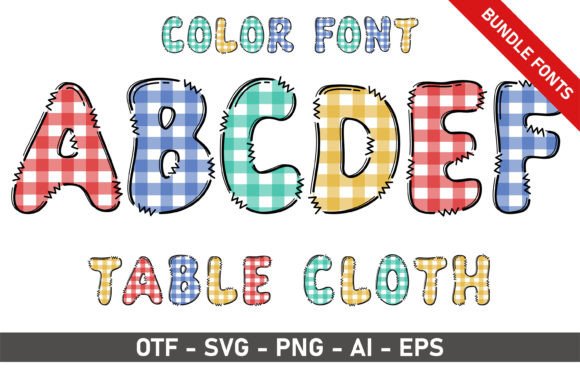
Welcome to the whimsical world of Table Cloth Bundle Font, a delightful collection of colorful characters created by the talented designers at Veil. The Table Cloth Bundle Font is the perfect choice for adding a touch of playfulness and artistry to your creative projects.
Imagine the smiles on your little ones' faces as they read a storybook adorned with these cheerful fonts. The playful shapes and vibrant colors create an immersive reading experience that will capture their imaginations and make them want to return to the pages again and again.
These charming fonts are perfect for invitations, greeting cards, and posters, adding a touch of whimsy and delight to any occasion. Whether you're planning a baby shower, birthday party, or just want to send a heartfelt message to a loved one, the Table Cloth Bundle Font has everything you need to make your creations unforgettable.
Step into a world where creativity knows no bounds, and let the Table Cloth Bundle Font inspire you to create projects that are bursting with personality and charm. From eye-catching posters to heartwarming greeting cards, these fanciful fonts are the key to unlocking your artistic potential.